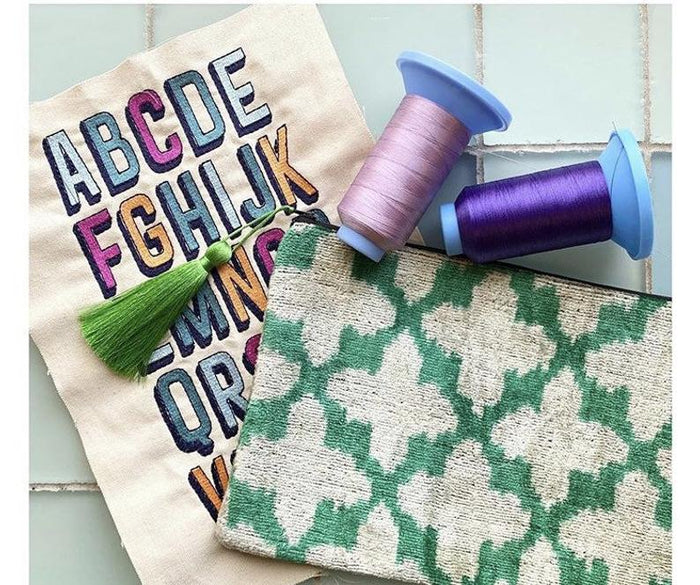
Layne Fill Shadow Type Embroidery Font
Transform your crafting projects with the Layne Fill Embroidery Font, a striking two-color type font specifically designed with embroidery fill stitches. The contrasting fill and redwork stitches seamlessly create an eye-catching shadow style, perfect for personalized projects.